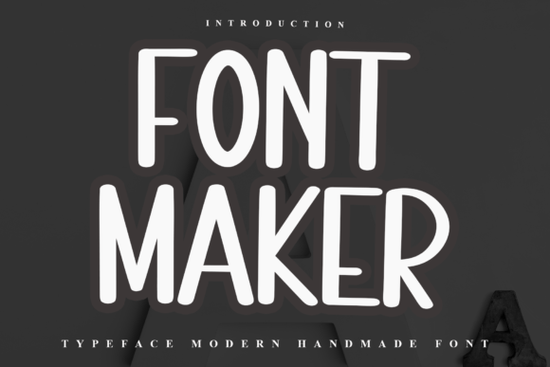
If you're looking for a friendly, hand-crafted holiday font that works well on greeting cards, gift tags, or seasonal social media graphics, Font Maker Font is a thoughtful choice. It’s not overly ornate or hard to read instead, it balances charm and clarity with subtle decorative touches that feel handmade, not computer-generated. Designed with the warmth of traditional holiday lettering in mind, it brings gentle whimsy without sacrificing legibility at smaller sizes. That makes it especially useful if you’re creating printable projects, SVG cut files, or digital downloads for crafters and small businesses.
What makes Font Maker Font different from other festive fonts?
Unlike many Christmas-themed typefaces that lean heavily into sparkle, snowflakes, or sharp serifs, Font Maker Font uses soft curves, slight irregularity, and light bounce in its letterforms giving it a relaxed, approachable personality. Its PUA encoding means all alternate characters, swashes, and ligatures are accessible right in your design software (no need for special plugins or workarounds). You’ll find flourishes on capital letters like “A”, “T”, and “S”, plus charming connecting glyphs that help words flow naturally great for phrases like “Merry & Bright” or “Joyful Wishes”.
Because it’s designed for real-world use, it pairs well with clean sans-serifs for contrast (think pairing it with Montserrat or Lato for card layouts), or with other script fonts when you want layered texture. For example, if you're building a bundle for Creative Market or Etsy, you might combine it with an elegant wedding script for spring collections, or a rustic farm-fresh script for fall harvest themes each serving a distinct seasonal mood without visual clash.
Who is this font best suited for?
Print-on-demand sellers will appreciate how easily Font Maker Font adapts to mugs, tote bags, and ornaments especially when used with short, uplifting phrases. Its medium weight holds up well in screen printing and DTG, and its open counters prevent ink bleed on textured paper or fabric.
Crafters and educators often need fonts that print cleanly on home printers and cut cleanly in Cricut or Silhouette software. Font Maker Font includes standard OpenType features and clean vector outlines, so it scales smoothly from 12 pt labels to 300 pt banners. Teachers making classroom decor or holiday newsletters also find it easy to read for kids the lowercase “g”, “a”, and “e” are clear and familiar, not overly stylized.
Small business owners running local gift shops or online boutiques can use it consistently across packaging, receipts, and Instagram Stories. It’s warm enough to feel personal but polished enough to support brand trust especially when paired with neutral supporting fonts or minimalist layouts.
How does it compare to similar script fonts?
It sits comfortably between playful and professional more refined than Cyber Brush Font, which leans edgy and modern, and less formal than Southmore Font, which has stronger calligraphic structure. If you’ve used Gorgeous Teacher Font for back-to-school designs, you’ll notice Font Maker Font shares some of that friendly rhythm but swaps chalkboard texture for holiday cheer.
- When exporting for Cricut Design Space, convert text to outlines to preserve ligatures and swashes.
- Pair it with solid-color backgrounds or subtle watercolor textures busy patterns compete with its delicate details.
If you're building a seasonal design kit, consider adding one coordinating sans-serif and a simple dingbat set (like holly sprigs or snowflakes) to round out the collection. And remember: even though it’s festive, Font Maker Font doesn’t have to be limited to December try it for birthday invites with gold foil accents, or baby announcements with soft pastel palettes. Its versatility comes from being joyful, not just holiday-specific.